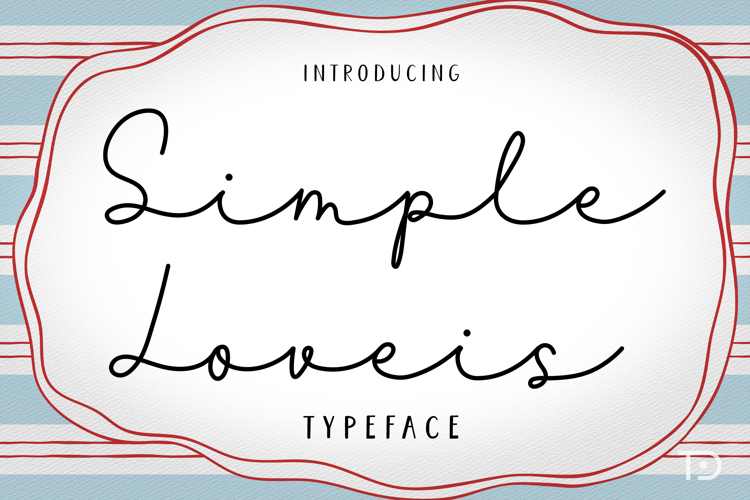
Introducing "Simple Loveis," a beautifully minimalist handwriting script font.
Tastefully simple, it inspires harmony and subtlety in all your creative endeavors. Whether it's for unifying your digital designs, adding kindly touch to your crafts, or bringing a comforting aesthetic to your merchandise like t-shirts and mugs, Simple Loveis effortlessly elevates your visual projects. Its seamless blend of charm and simplicity is perfect for cards and any other designs you envision, manifesting the essence of beauty in simplicity across all your creative canvases. Be captivated by the cleanliness and elegance of Simple Loveis and let this font echo your imagination in every stroke.